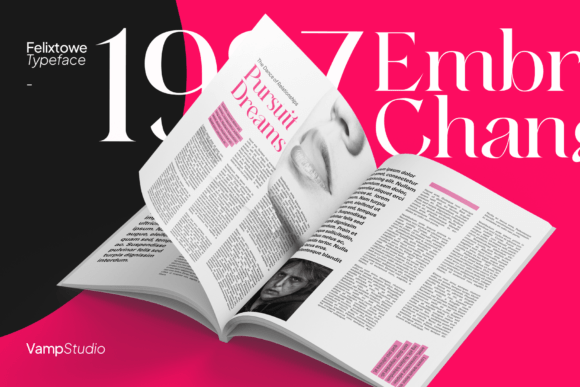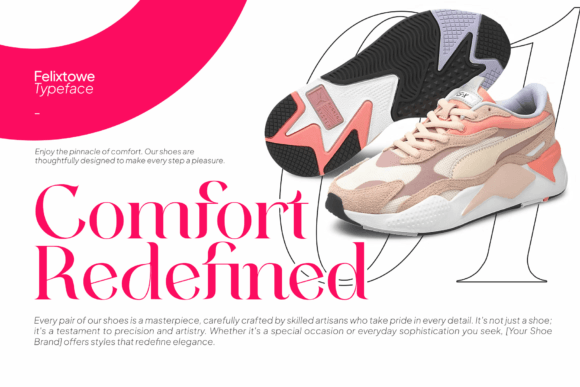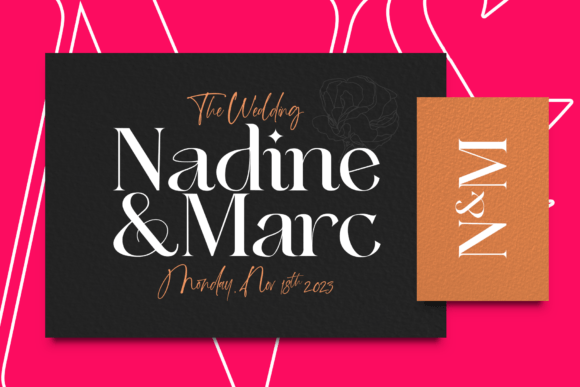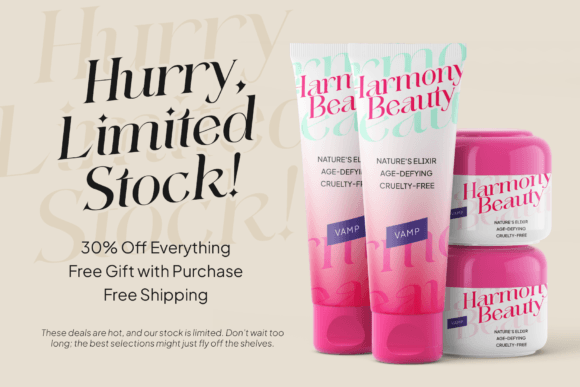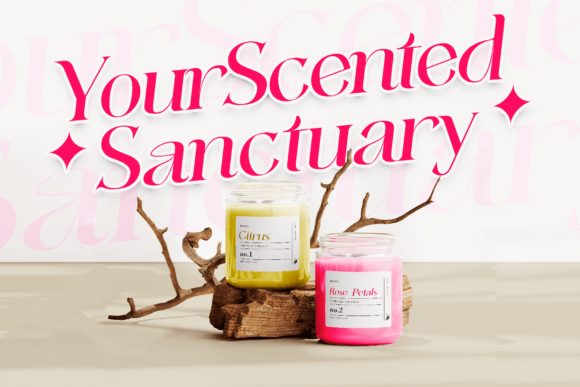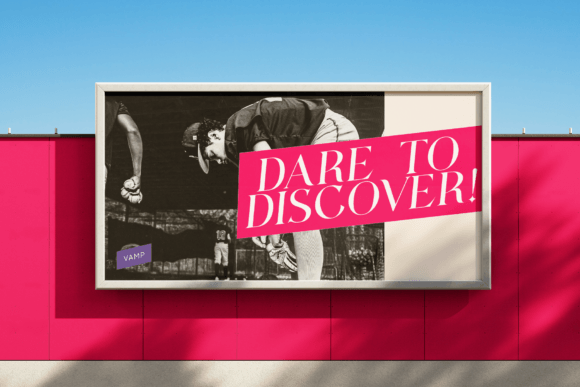
Introduction to Felixtowe Font
Felixtowe is a PUA Encoded modern, elegant serif typeface, perfect for branding projects, logos, wedding designs, social media posts, advertisements, product packaging, product designs, labels, photography, watermarks, invitations, stationery and any so much more.
Key Features of Felixtowe Font